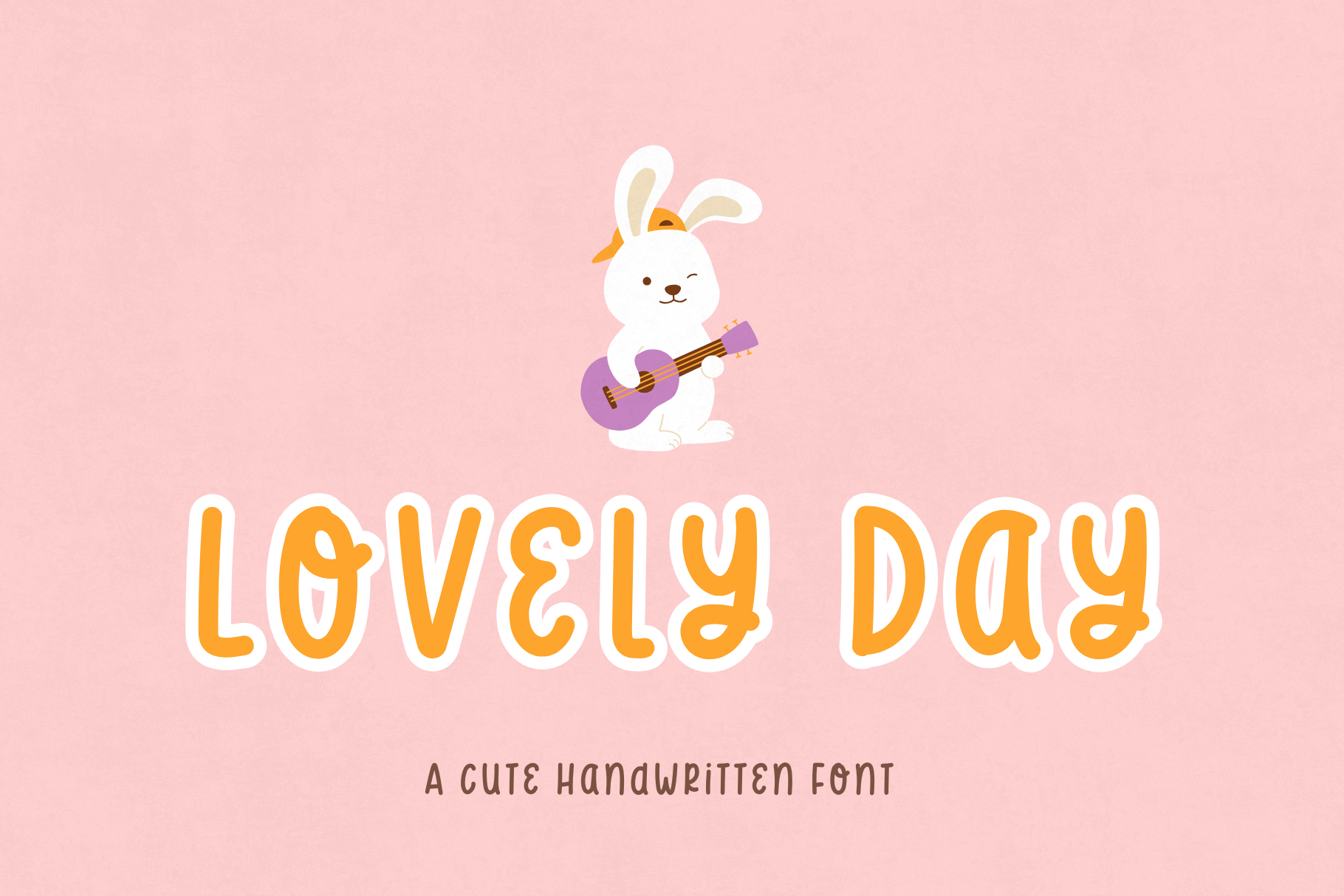
Lovely Day | Cute Handwritten Font
Embrace the joyful essence of every moment with 'Lovely Day', Perfectly crafted with playful strokes and a delightful bounce, Whether you're creating greeting cards, invitations, posters, or branding materials, this versatile font is sure to bring a smile to your audience. Let 'Lovely Day' infuse your designs with its cheerful personality and make every project a celebration of creativity and positivity.